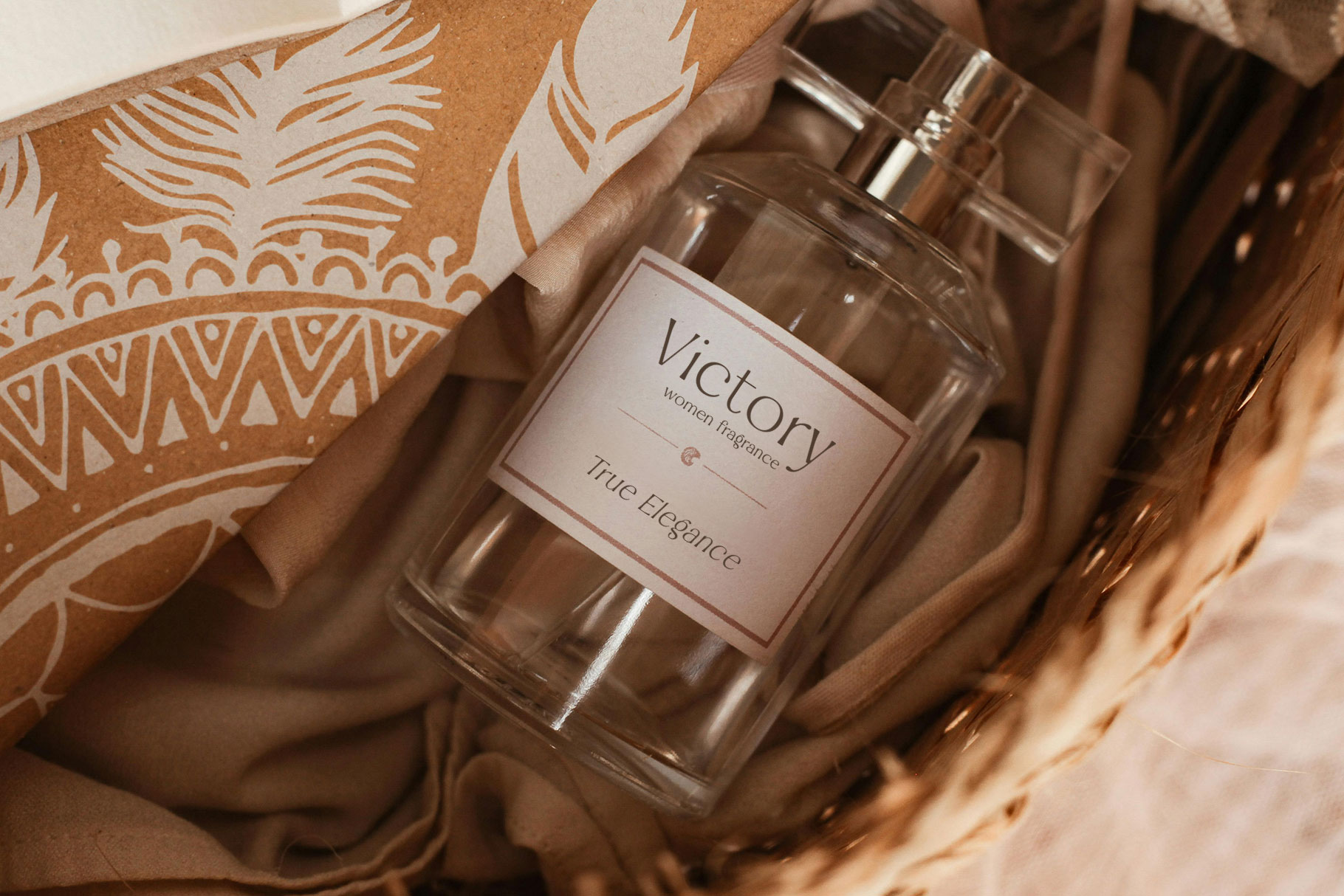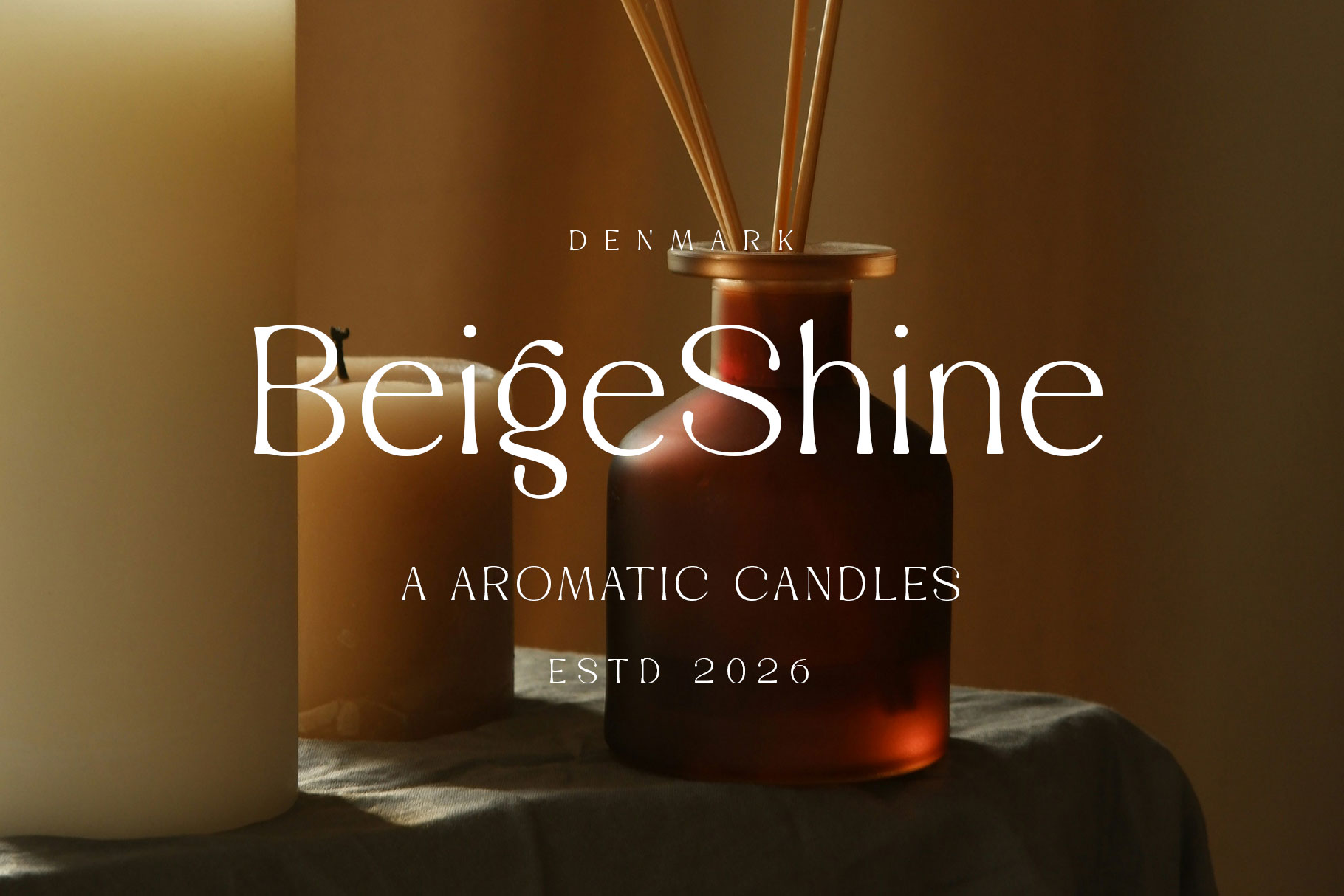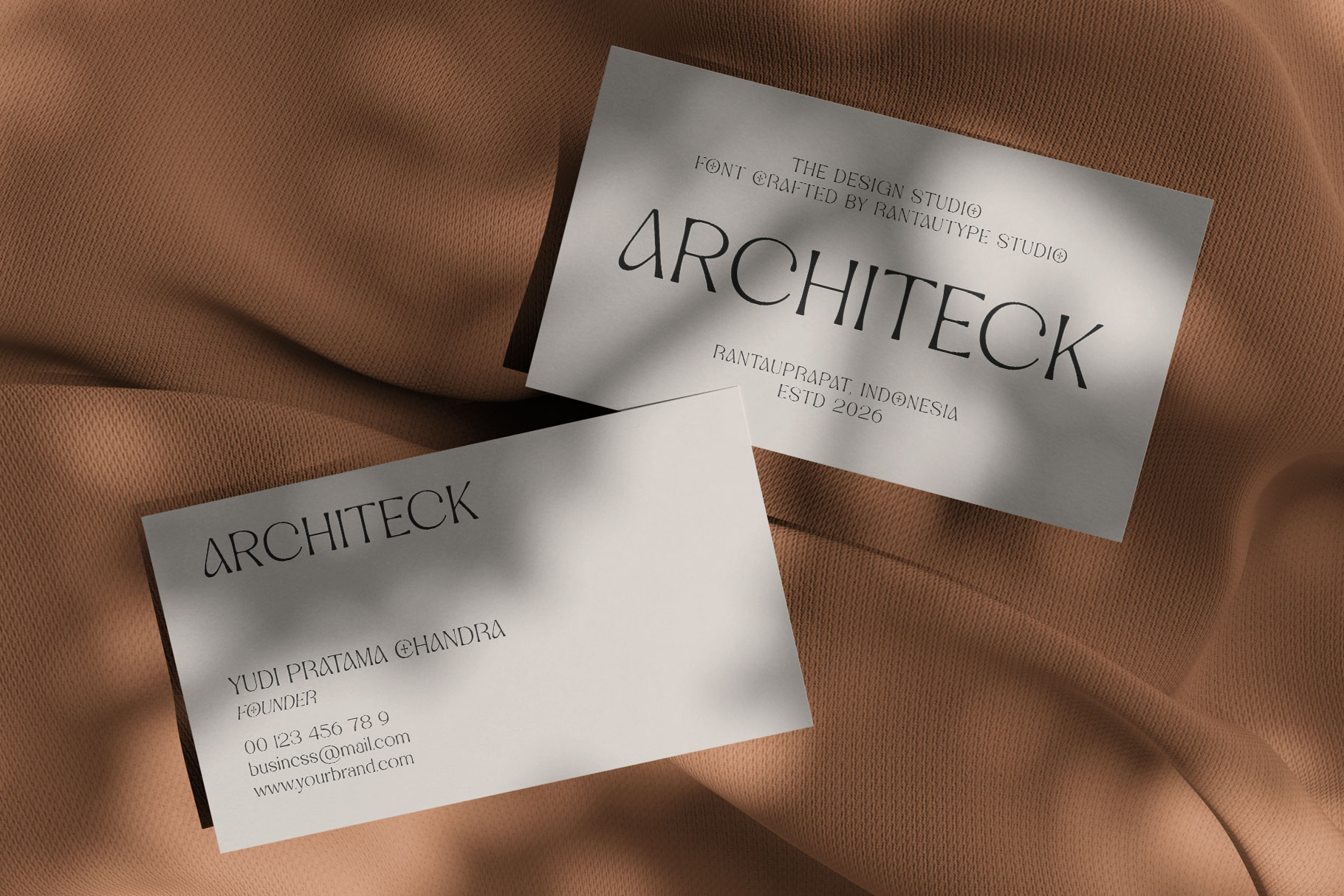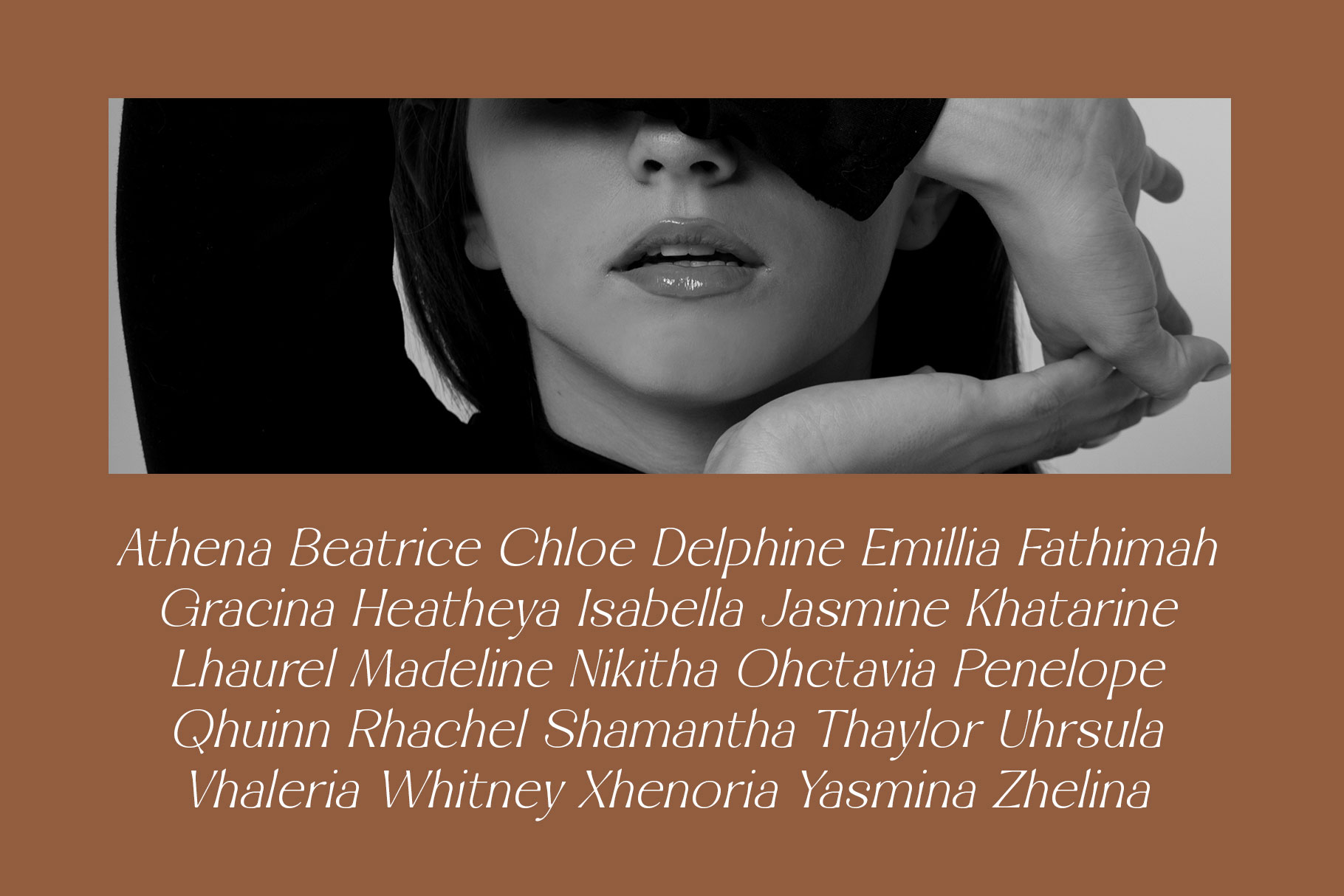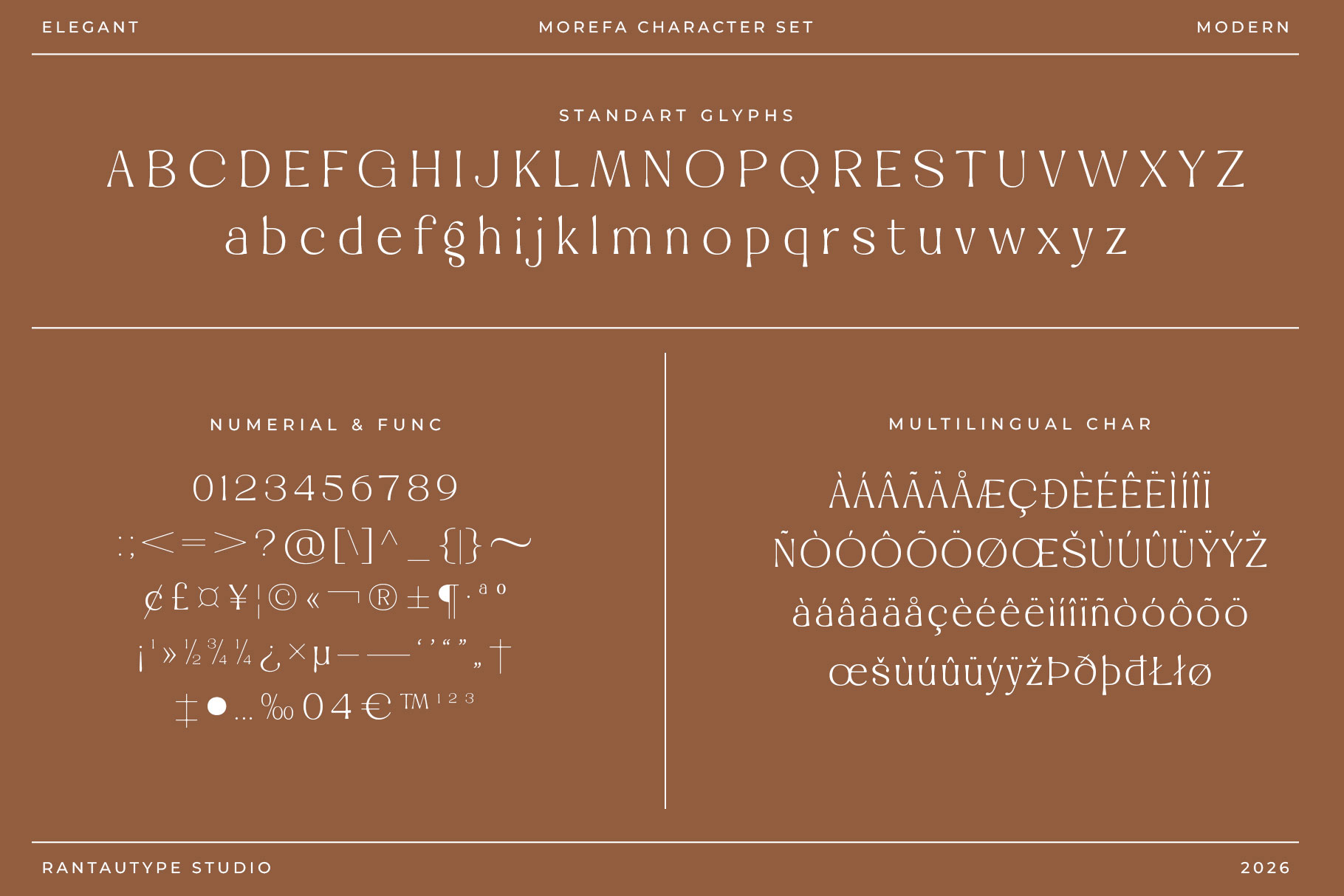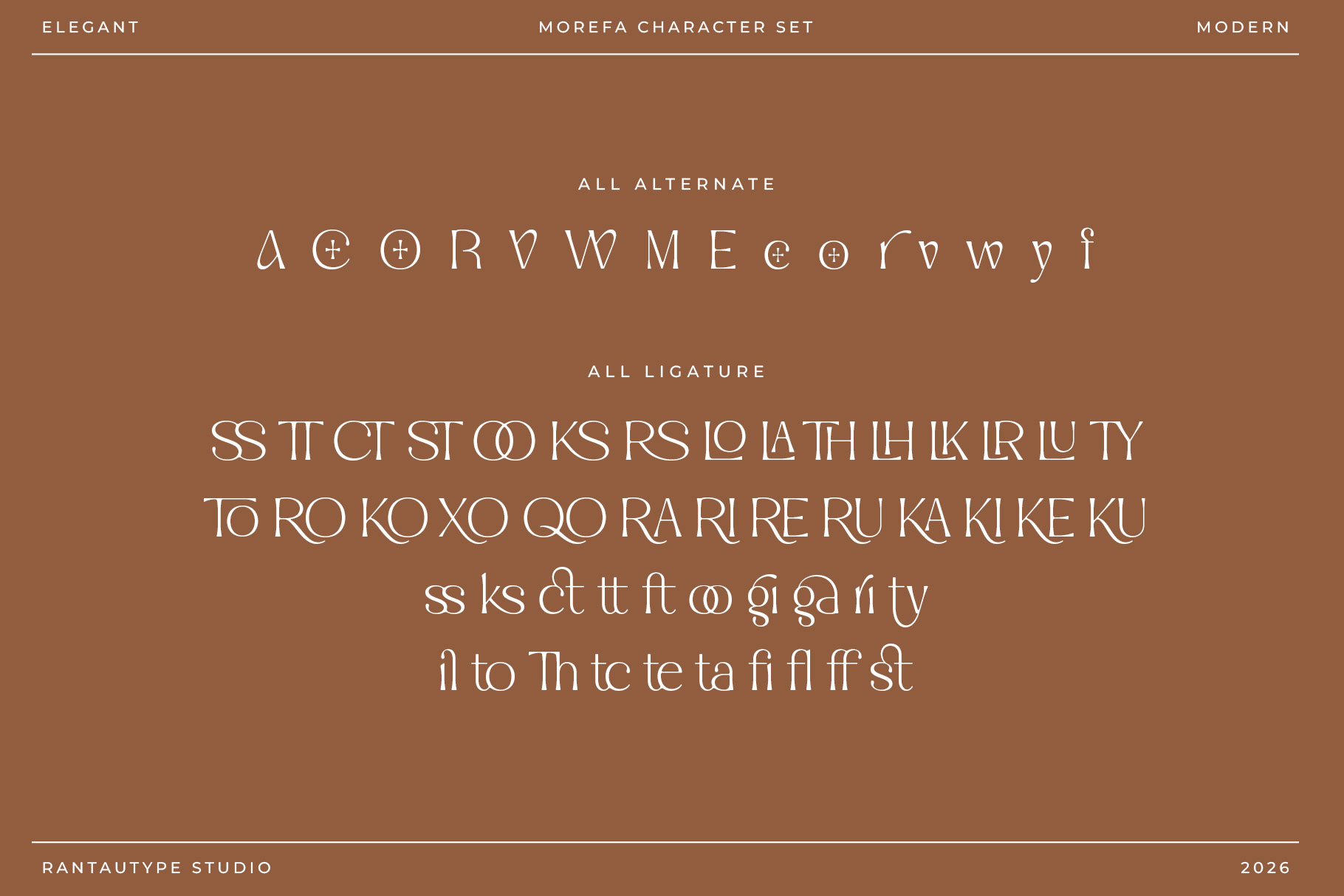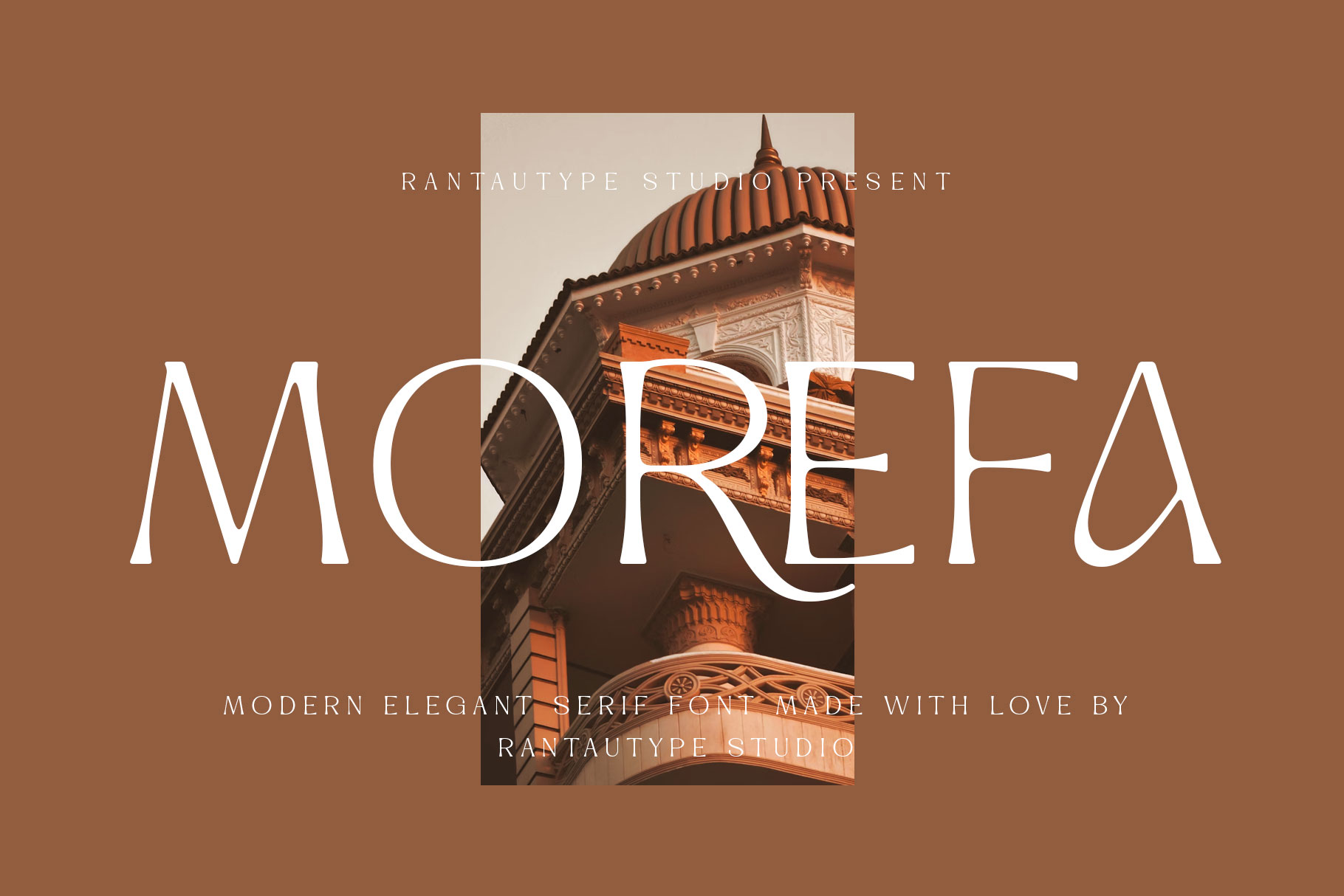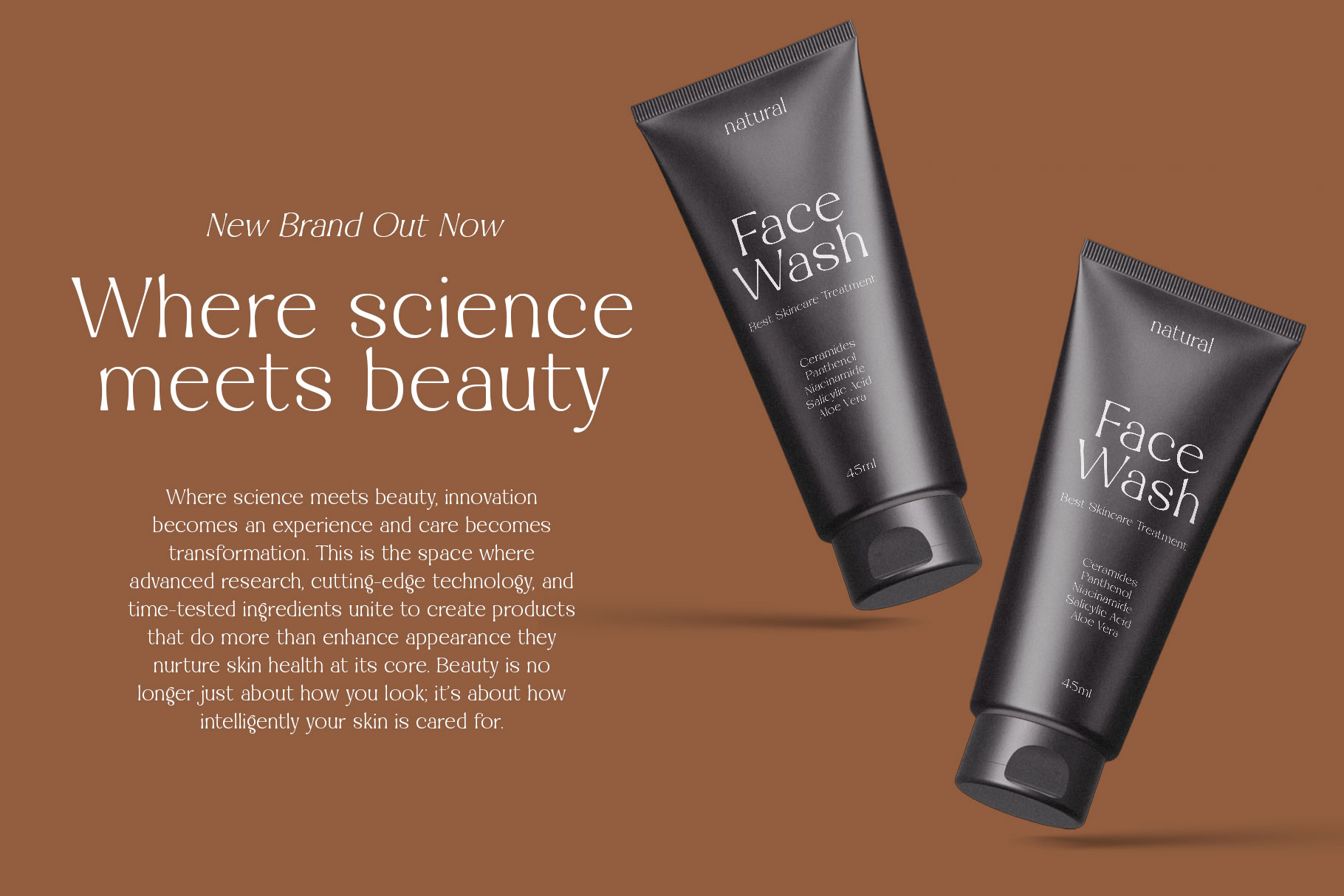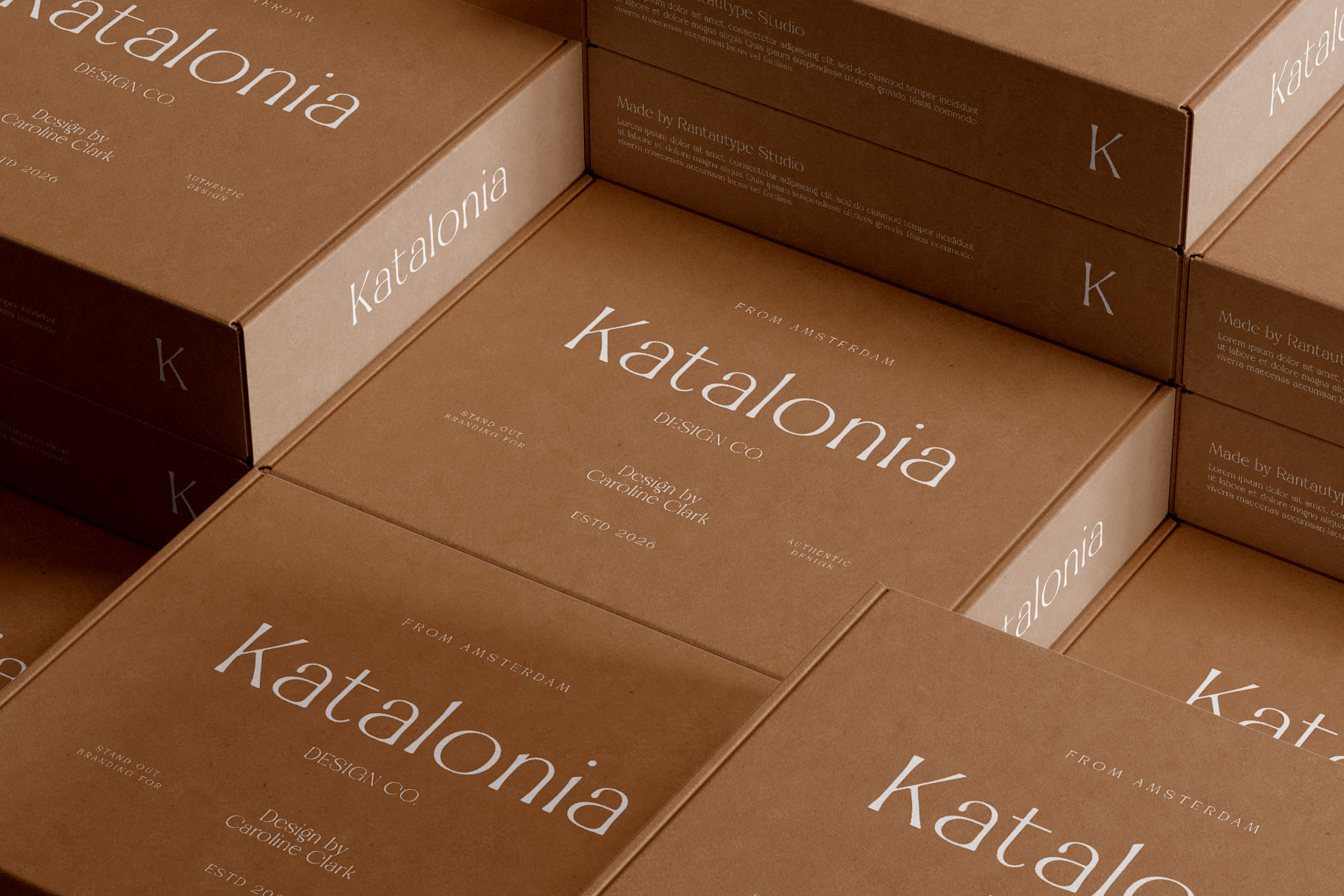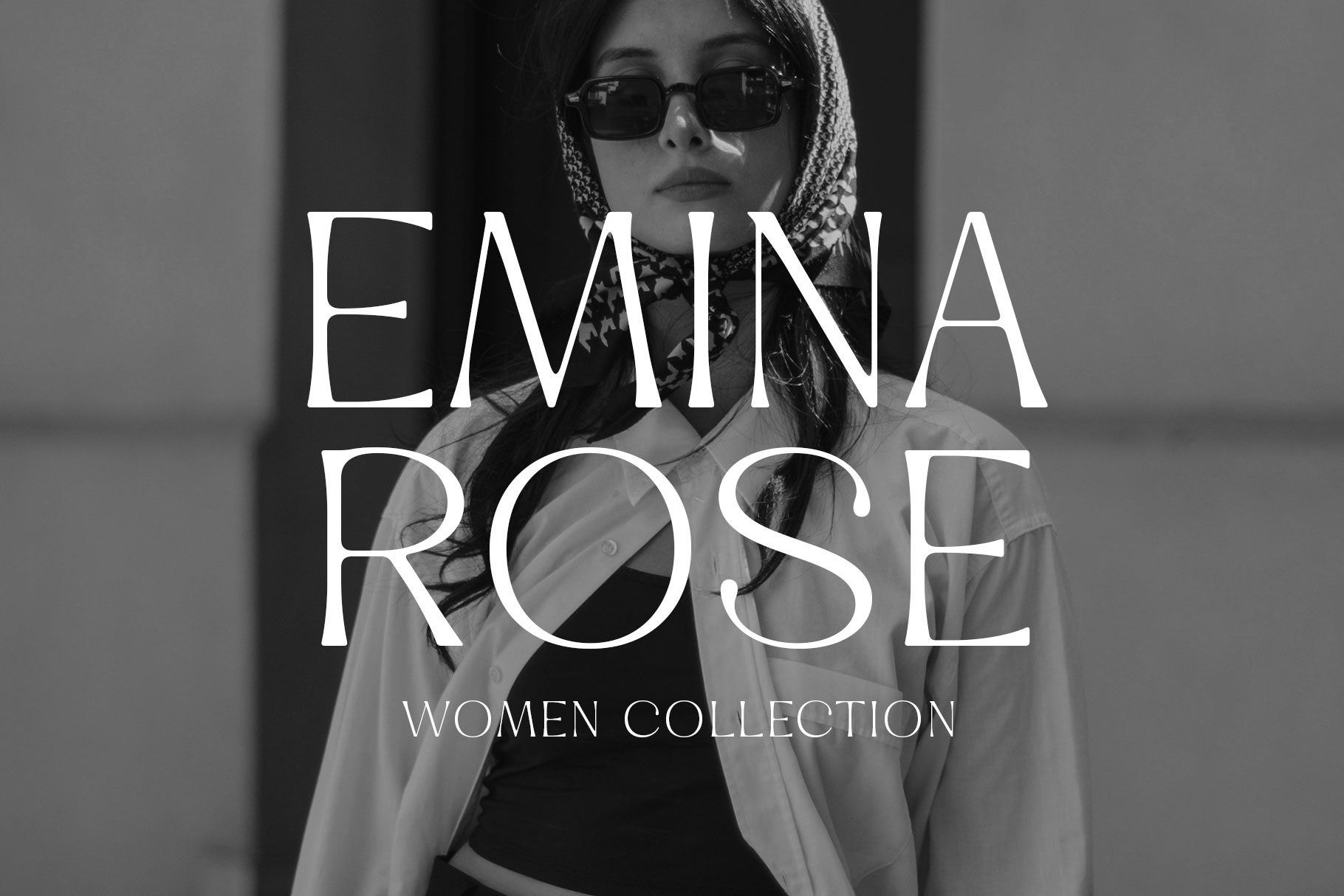
Morefa is elegant serif font with aesthetic shape. Morefa is a perfectly choice for any creative endeavor, creating, modern, lifestyle design such as logotype, title, cover, branding, invitations, wedding designs, display and magazine, social media posts, advertisements, printed quotes, product packaging, corporate brand, product designs, labels, photography, watermarks, special events and any other project with modern touch.